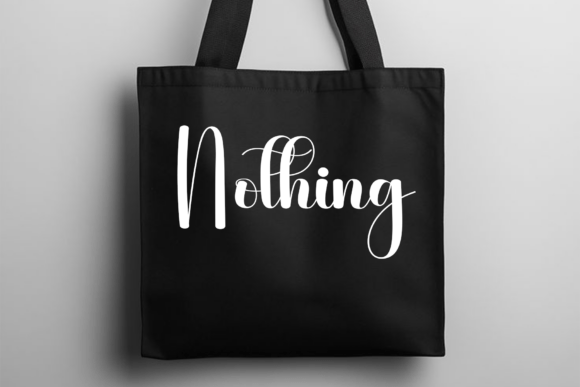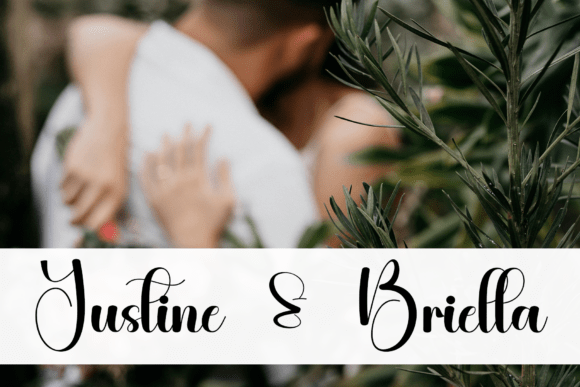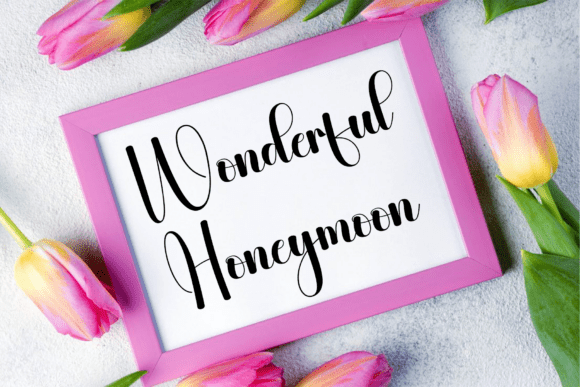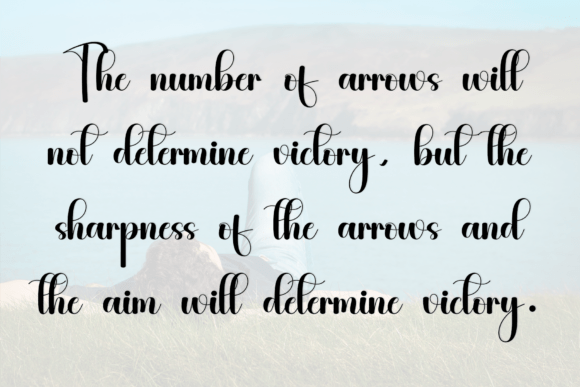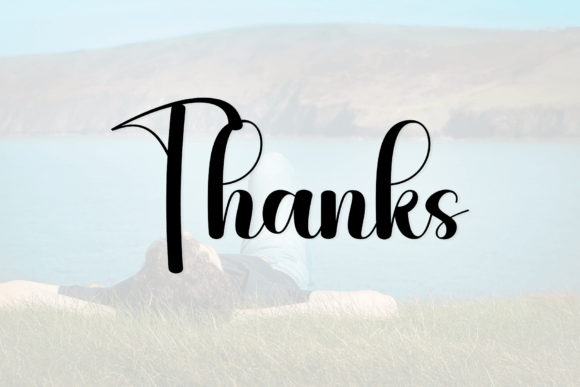
The Dreamy Elegance of Daydream Font: A Designer’s Delight
I’ll never forget the time I was working on a wedding invitation suite for a client, and I was struggling to find the perfect font. The design needed to be elegant, sophisticated, and romantic, but also unique and memorable. After hours of scouring font websites and trying out different options, I stumbled upon Daydream Font. It was like a breath of fresh air – the perfect blend of effortless elegance and whimsical charm. In this article, I’ll share my experience with Daydream Font, its features, and how to make the most of it in your designs.
Here’s what I’m obsessed with about Daydream Font:
- ✨ Elegant and fluid strokes: The high-contrast stroke weight gives it an undeniably organic, high-end calligraphic finish.
- ✅ Seamless transitions: The way the sweeping, looping capital flourishes transition into neat, rhythmic lowercase cursive lines is pure magic.
- 💕 Romantic and luxurious feel: Daydream Font adds an authentic hallmark of personal luxury and upscale romance to any design.
And, of course, no font is perfect. Here are a few quirks to keep in mind:
- 🤔 Limited use in body text: While Daydream Font is stunning in headings and titles, it may not be the best choice for longer blocks of text.
- ⚠️ Requires attention to spacing: To get the most out of Daydream Font, you’ll need to pay attention to letter spacing and word spacing to ensure it looks elegant and refined.
The Story Behind Daydream Font
Daydream Font was inspired by the calm, fluid rhythm of a peaceful afternoon. Its creator, a talented type designer, wanted to capture the essence of a leisurely stroll on a warm summer day. With its elegant strokes and whimsical charm, Daydream Font is the perfect reflection of that carefree feeling.
| Q: What type of projects is Daydream Font best suited for? | A: Daydream Font is perfect for elegant wedding invitation suites, minimalist fashion lookbooks, boutique cosmetic packaging, delicate lifestyle photography watermarks, and high-end editorial layouts. |
| Q: Can I use Daydream Font for body text? | A: While Daydream Font is stunning in headings and titles, it may not be the best choice for longer blocks of text. Consider using a more legible font for body text. |
| Q: Is Daydream Font suitable for digital use? | A: Yes, Daydream Font is designed to be versatile and works beautifully in both print and digital applications. |
With its elegant strokes, whimsical charm, and luxurious feel, Daydream Font is an exquisite addition to any design project. Whether you’re a seasoned designer or a creative hobbyist, this beautiful handwritten script font is sure to inspire your next masterpiece.